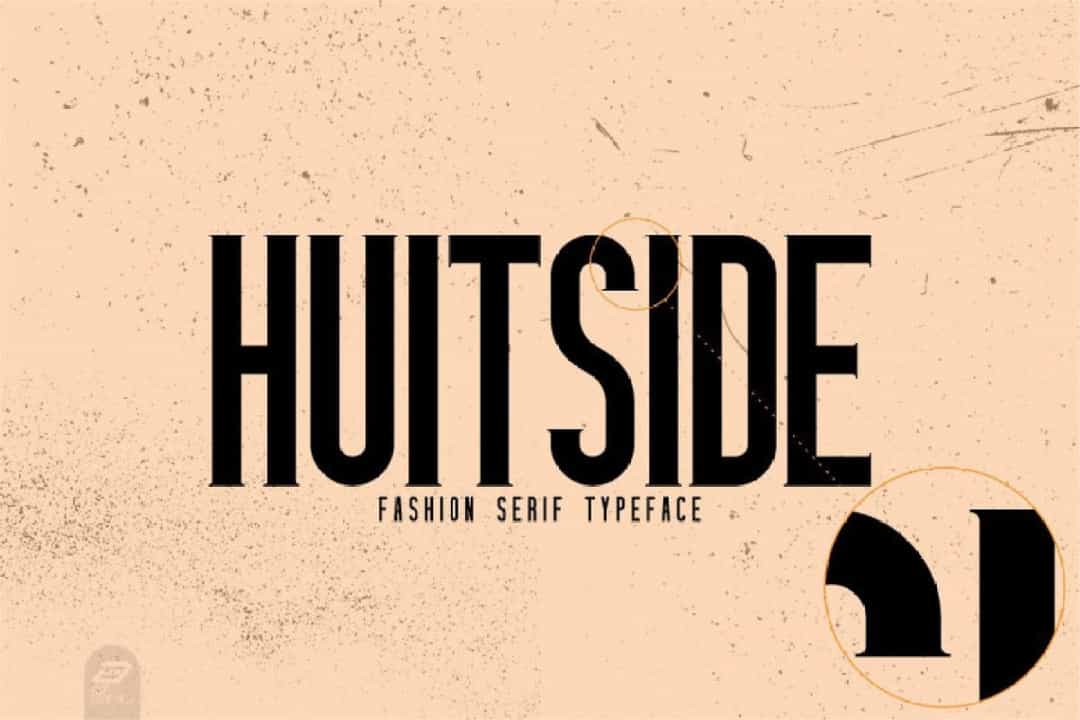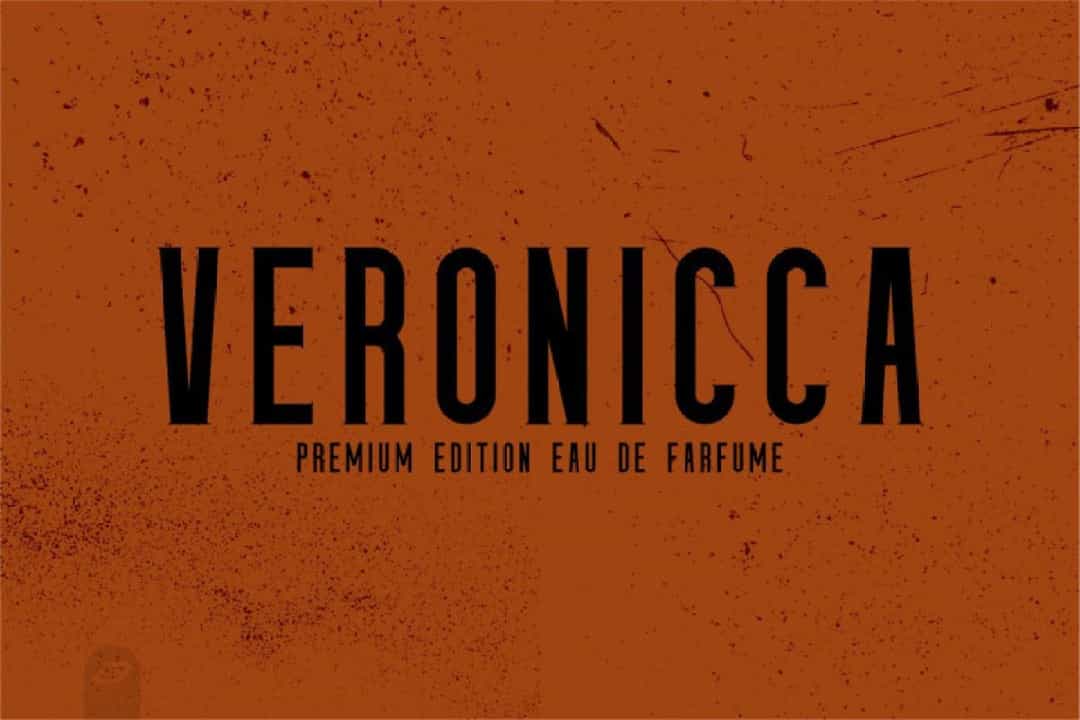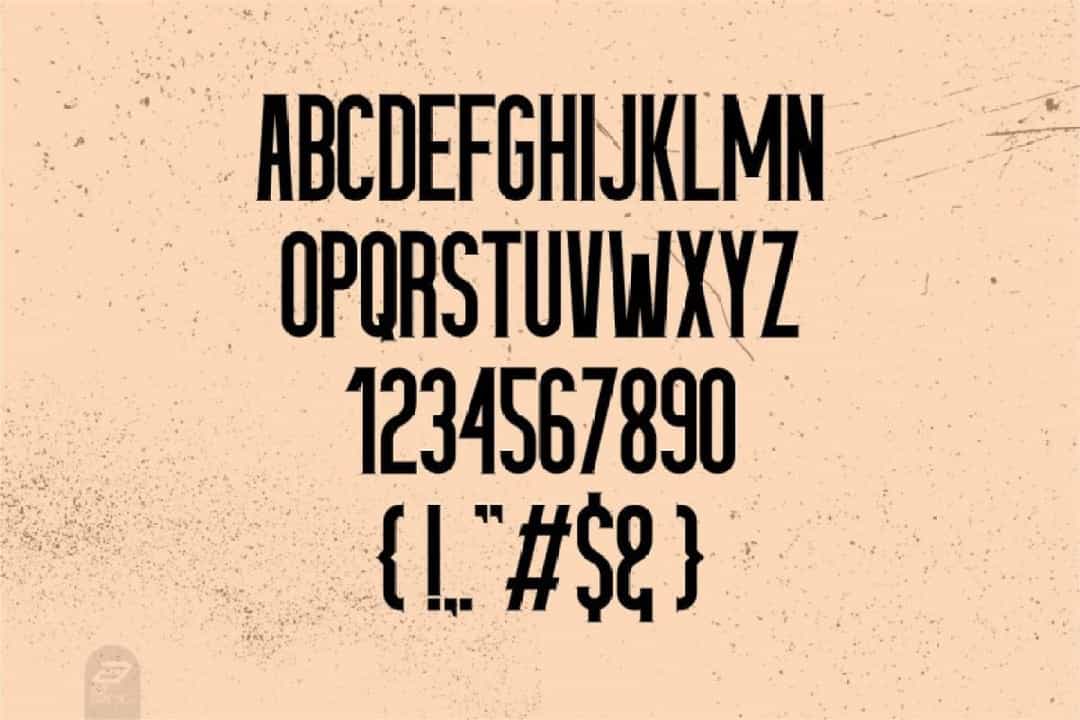
Huitside is an impressive serif font featuring thick and bold letters with distinctively-shaped letters, making it the ideal choice for designs requiring a unique touch.